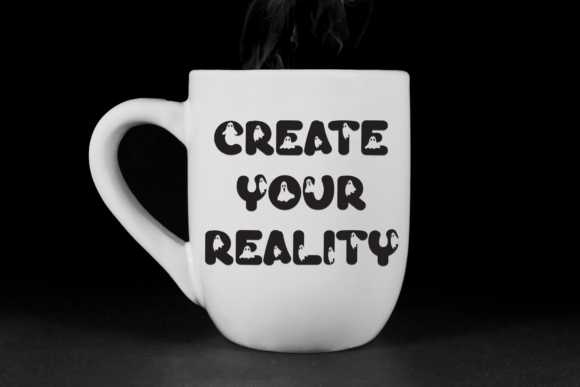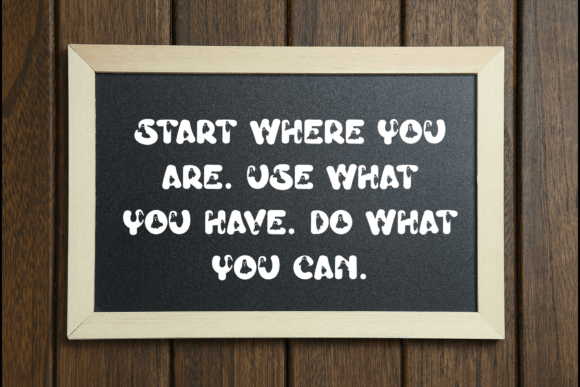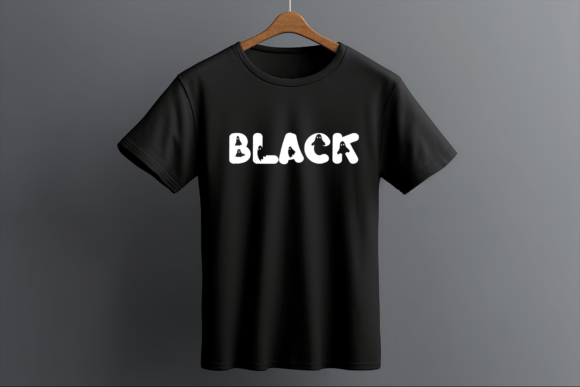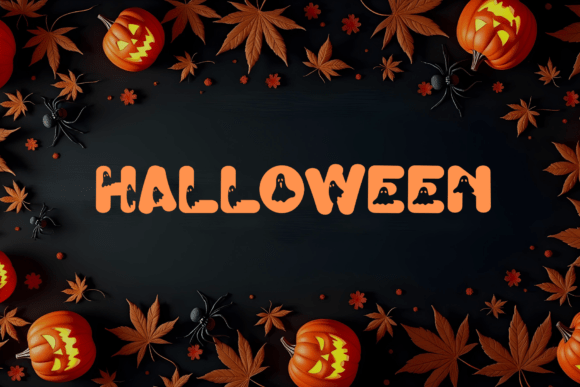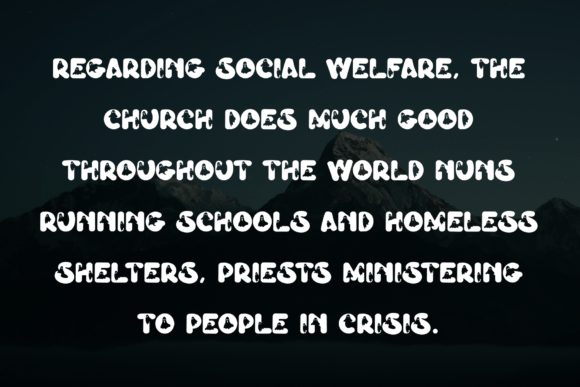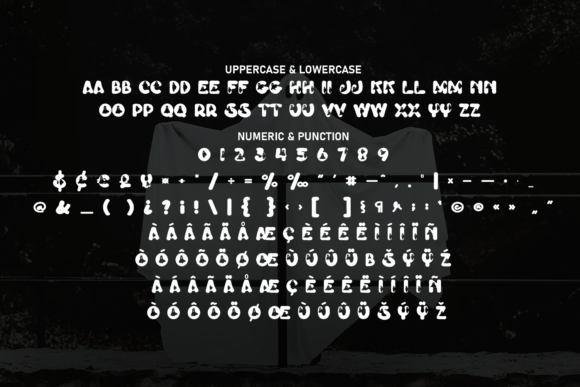
Unleash the Spookiness: Exploring the Delightful World of Ghost Font
Are you a designer or crafter looking for a unique and playful font to add a touch of horror charm to your projects? Look no further than the Ghost Font! This fun decorative font is perfect for creating cute and spooky designs that are sure to delight. In this article, we’ll dive into the world of Ghost Font, exploring its features, uses, and benefits, as well as provide tips and inspiration for incorporating it into your creative projects.
What is Ghost Font?
Ghost Font is a decorative font designed to capture the essence of Halloween and horror themes, with a playful twist. Its unique design features ghostly, whimsical characters that are sure to add a touch of spookiness to any project. The font is highly versatile, making it suitable for a wide range of applications, from invitations and posters to crafts and DIY projects.
Key Features of Ghost Font
- Unique Design: Ghost Font features ghostly characters with a playful, whimsical touch.
- Decorative Style: The font has a decorative style that’s perfect for horror-themed designs.
- Highly Versatile: Ghost Font can be used for a wide range of projects, from invitations to crafts.
- Easily Readable: Despite its decorative style, Ghost Font is easily readable, making it perfect for headlines and titles.
Uses of Ghost Font
Ghost Font is perfect for designers and crafters who want to add a touch of horror charm to their projects. Here are some ideas for using Ghost Font:
- Halloween Invitations: Create spooky and fun invitations for Halloween parties and events.
- Horror-themed Posters: Design eye-catching posters for horror movies, haunted houses, or spooky events.
- Crafts and DIY Projects: Add a touch of horror charm to your crafts and DIY projects, such as ghostly decorations, spooky signs, or eerie window clings.
- T-Shirts and Merchandise: Create unique and eye-catching designs for t-shirts, hoodies, and other merchandise.
Benefits of Using Ghost Font
Ghost Font offers several benefits for designers and crafters, including:
- Unique and Playful Design: Ghost Font adds a touch of horror charm to any project, making it stand out from the crowd.
- Easily Customizable: The font can be easily customized to fit your project’s style and theme.
- High-quality Design: Ghost Font is designed with high-quality graphics, ensuring that it looks great in any project.
Tips for Using Ghost Font
Here are some tips for using Ghost Font in your projects:
- Experiment with Colors: Try out different colors to find the perfect combination for your project.
- Mix and Match Fonts: Combine Ghost Font with other fonts to create a unique and eye-catching design.
- Play with Sizes: Experiment with different font sizes to create visual interest and hierarchy.
Need inspiration for your next project? Here are some ideas to get you started:
- Ghostly Garland: Create a ghostly garland using Ghost Font and decorate your home or office.
- Spooky Signs: Design spooky signs using Ghost Font and add a touch of horror charm to your Halloween decorations.
- Horror-themed Party: Create invitations, decorations, and other party materials using Ghost Font.
Ghost Font is a fun and playful decorative font that’s perfect for adding a touch of horror charm to your designs and crafts. With its unique design, highly versatile style, and easily readable characters, Ghost Font is sure to delight designers and crafters alike. Whether you’re creating Halloween invitations, horror-themed posters, or spooky crafts, Ghost Font is the perfect choice. So why not give it a try and see the spooky magic you can create?